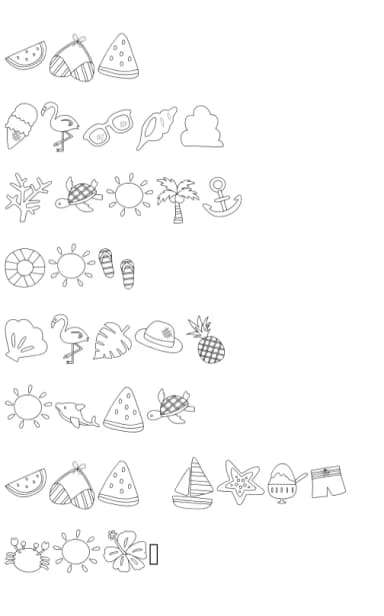
Beach Fun by Happy Bamboo is a playful dingbat collection filled with summertime illustrations. The font includes a variety of beach-themed glyphs: palm trees, sunglasses, ice cream cones, and seashells that work as standalone decorative elements or scattered throughout text. This makes it useful for adding visual interest without replacing your main typeface.
Teachers find these glyphs useful for classroom decor and morning worksheets, sprinkling them across bulletin boards to keep designs light and engaging. The same elements work well for birthday and party invitations, where the whimsical character feels right at home. For KDP projects like coloring books and interior design templates, the illustrations provide ready-made graphics that users can color in or customize. Etsy sellers creating printable stickers, birthday packages, and classroom resources find the glyphs particularly handy for quick layouts without needing additional design software.
Beach Fun Font